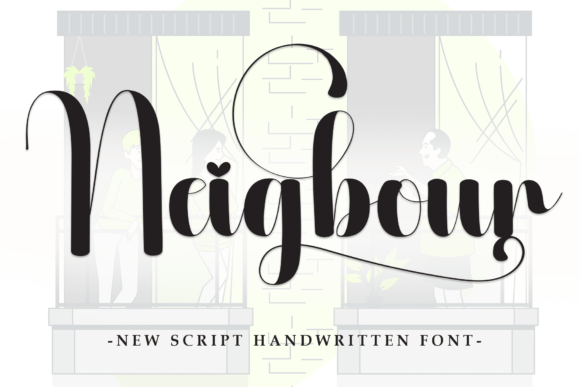
Neigbour: A Modern Handwritten Script for Creative Designers
The right typeface can instantly transform a project from ordinary to unforgettable, especially when it carries the warmth and authenticity of a handwritten style. For designers and creators seeking that perfect blend of natural elegance and modern flair, the Neigbour font emerges as a compelling choice. This modern handwritten script is crafted to feel both personal and polished, making it a versatile asset for a wide array of creative applications.
The Essence of Neigbour: Natural Style Meets Digital Precision
At its core, Neigbour is a premium script font designed to emulate the organic flow of handwriting. It avoids the rigidity of many digital typefaces, offering instead a fluid, stylish character that feels genuinely human. This makes it an excellent display font for projects where you want to convey personality, craftsmanship, or a sense of bespoke quality. Unlike a standard serif font or a clean sans serif font, a handwritten script like this adds a layer of emotional resonance and approachability.
A key feature enhancing its utility is the encoded PUA character set. This technical advantage means all alternate characters and stylistic sets are fully accessible directly from your keyboard or basic design software. You won't need advanced applications to unlock the font's full potential, which streamlines the design process and makes creative experimentation effortless.
Creative Applications: Where Neigbour Truly Shines
The versatile style of this creative font makes it suitable for both personal and commercial projects. Its ability to add a customized touch is invaluable across numerous design disciplines.
- Branding & Logo Design: Use Neigbour to craft unique wordmarks or supporting typography that gives a brand identity an artisanal, approachable feel. It's perfect for businesses in the wedding, beauty, or lifestyle sectors.
- Print & Editorial Design: It brings elegance to wedding invitations, thank you cards, greeting cards, and magazine quotes. As an editorial design asset, it can highlight pull quotes or chapter titles with a personal touch.
- Packaging & Merchandise: Add a handwritten label feel to product packaging, or create stylish text for merchandise like tote bags and mugs.
- Digital Presence: Enhance social media graphics, create eye-catching poster designs, or use it sparingly in web design for headers or featured text to draw the viewer's eye.
Pairing and Practicality: Using the Font Effectively
To ensure your design remains professional and readable, consider how Neigbour interacts with other typefaces. As a script font, it pairs beautifully with a simple, clean sans serif or a classic serif for body text. This creates a strong visual hierarchy, where Neigbour commands attention for headlines or key phrases, while the companion font ensures longer passages are easy to read.
When using this typeface, pay attention to scalability. While it looks stunning in larger sizes for logos and invitations, test its legibility at smaller scales, especially for detailed business card text or digital product descriptions. The flow of the letters should remain clear without becoming a tangled line.
Choosing a Typeface That Aligns With Your Vision
Typography is a foundational element of design that directly influences brand perception. A font like Neigbour communicates creativity, attention to detail, and a modern aesthetic. Before integrating it into a major project, consider its tone. Is it the right fit for your client's audience? Does it support the message you want to send?
Ultimately, selecting a font is about finding the right tool for your creative expression. For projects that demand a human, stylish, and adaptable handwritten feel, a thoughtfully designed script like Neigbour offers a powerful way to make your work feel both personalized and impeccably crafted.